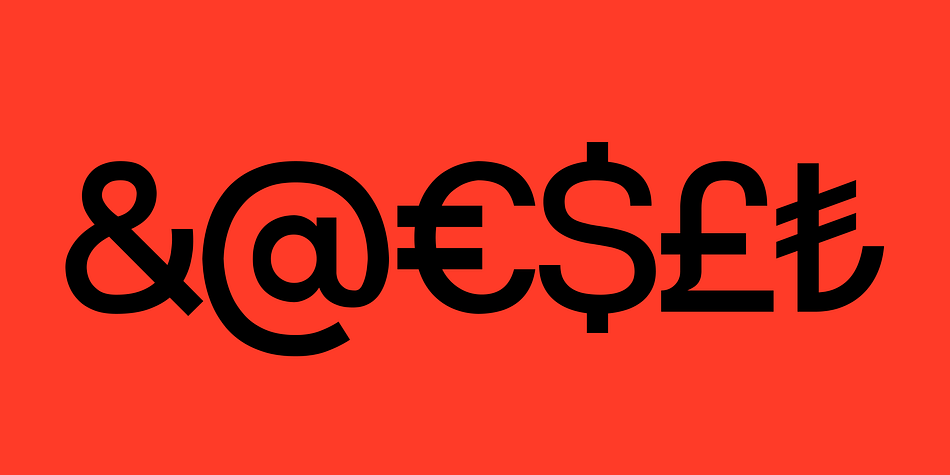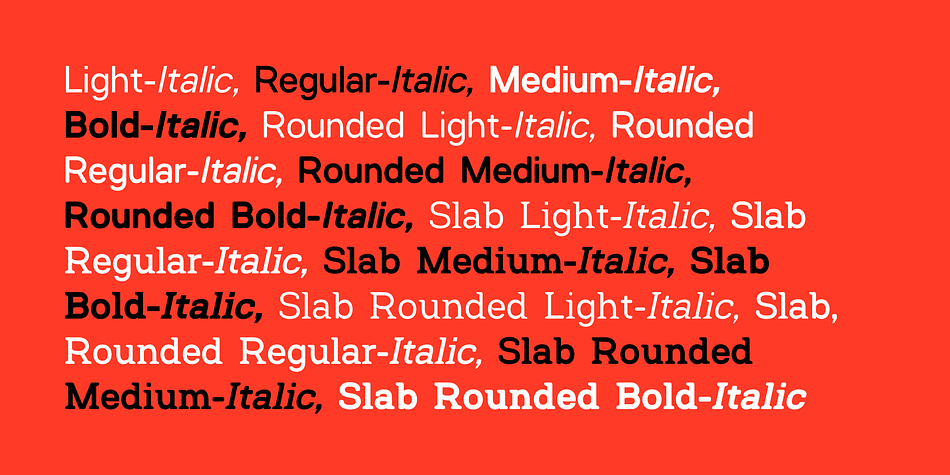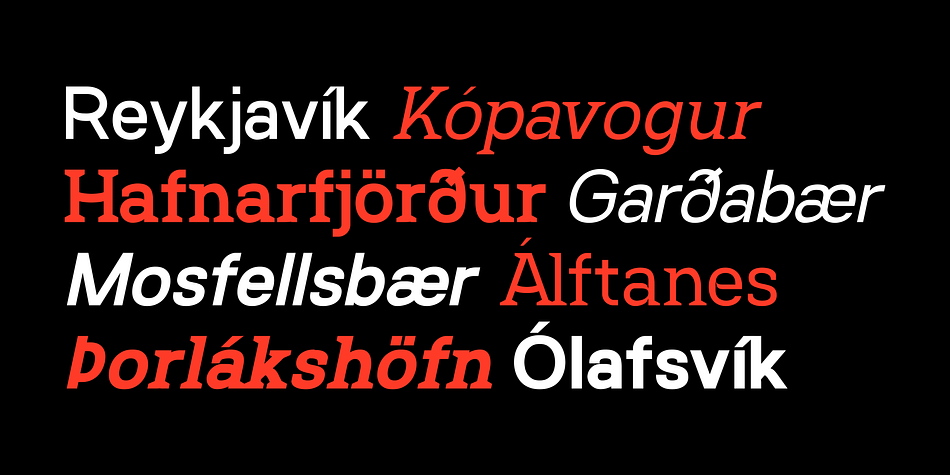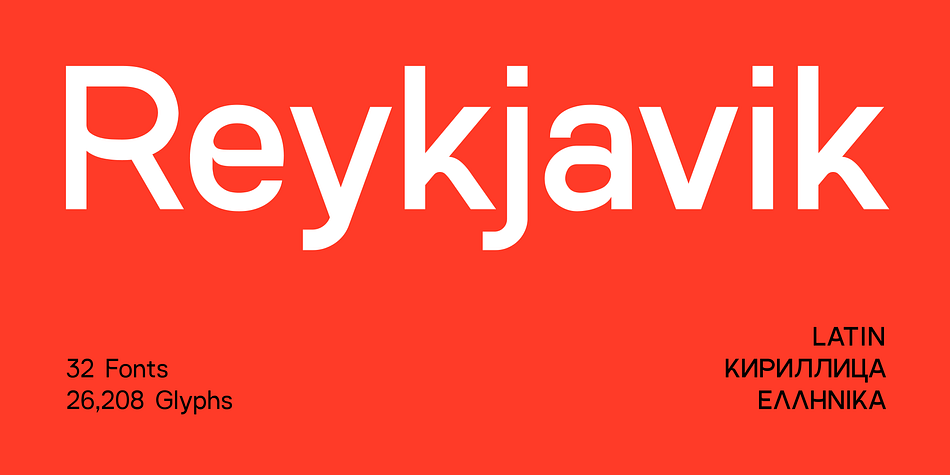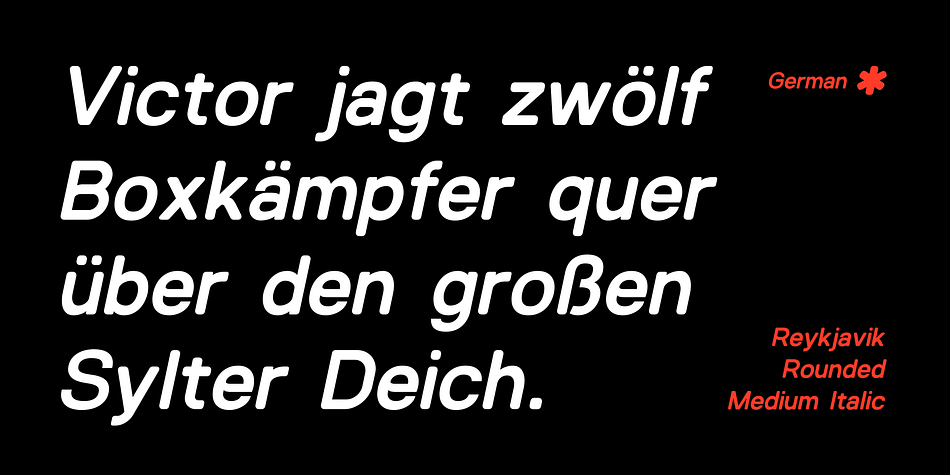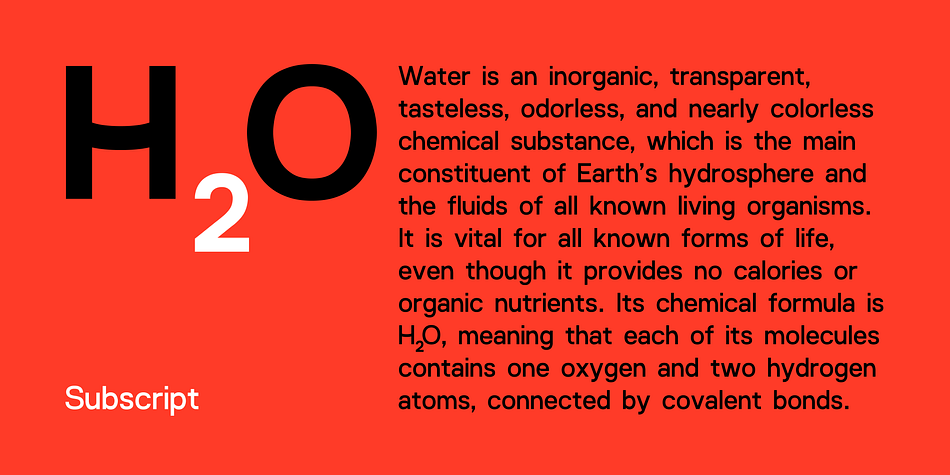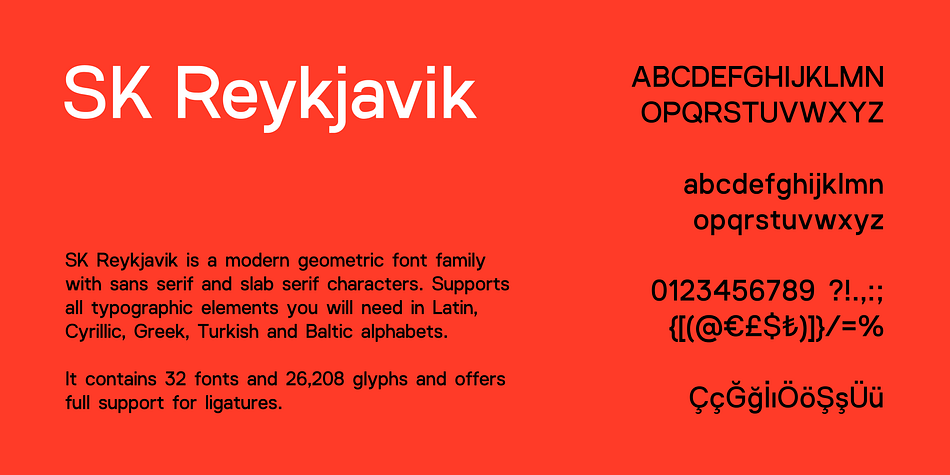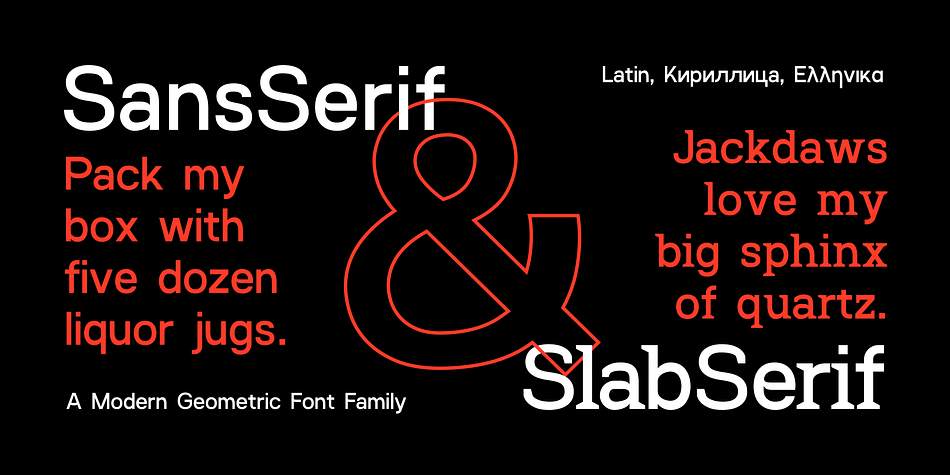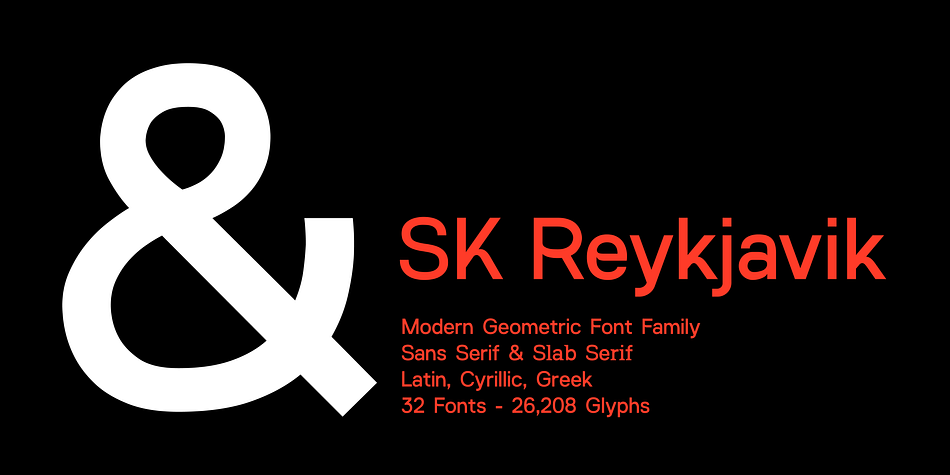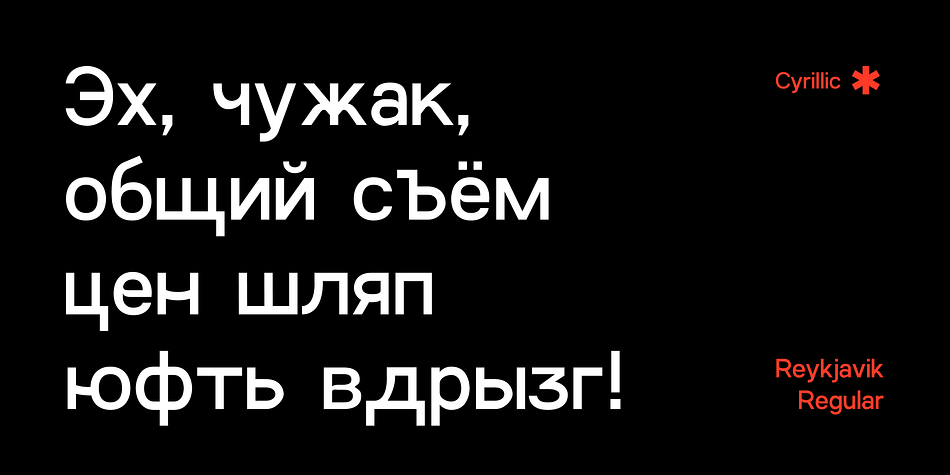
Designed by Salih Kizilkaya, SK Reykjavik is a display serif, sans serif and serif font family. This typeface has thirty-two styles and was published by Salih Kizilkaya.
SK Reykjavik is a modern geometric font family with sans serif and slab serif characters. Supports all typographic elements you will need in Latin, Cyrillic, Greek, Turkish and Baltic alphabets. It contains 32 fonts and 26,208 glyphs and offers full support for ligatures.